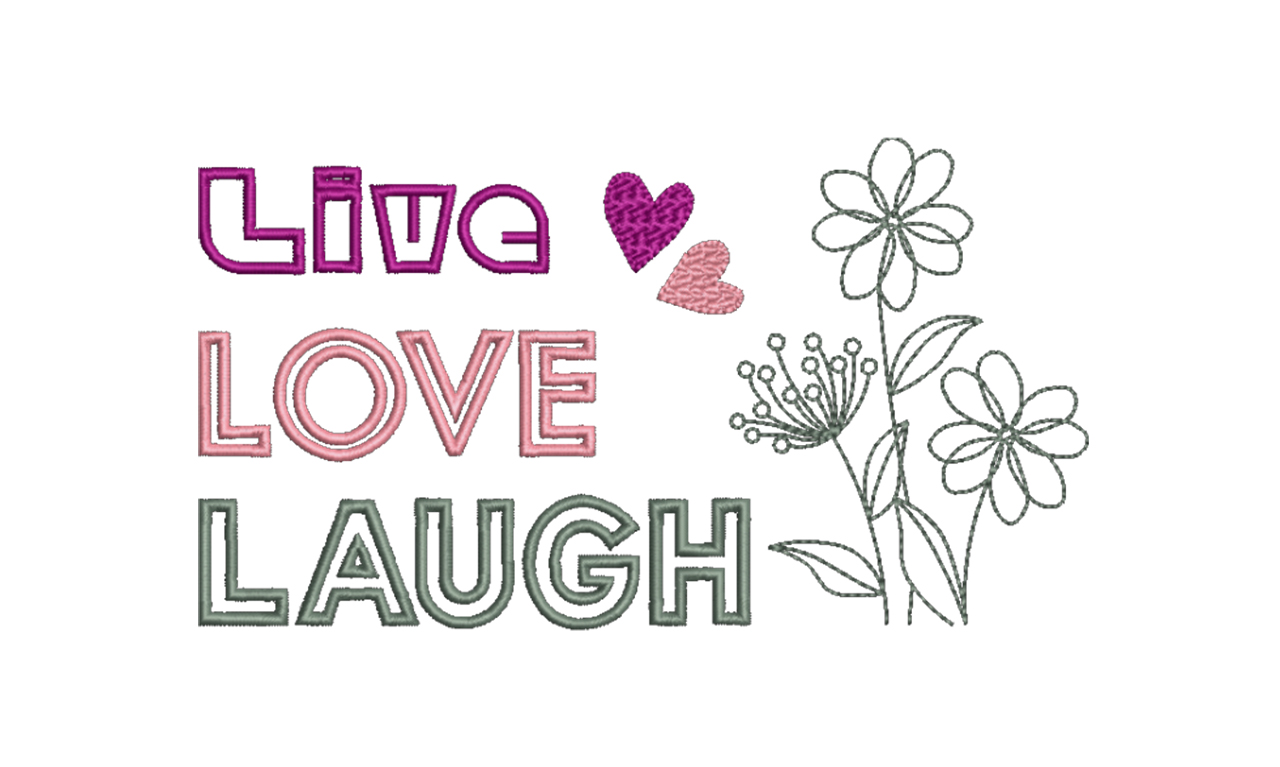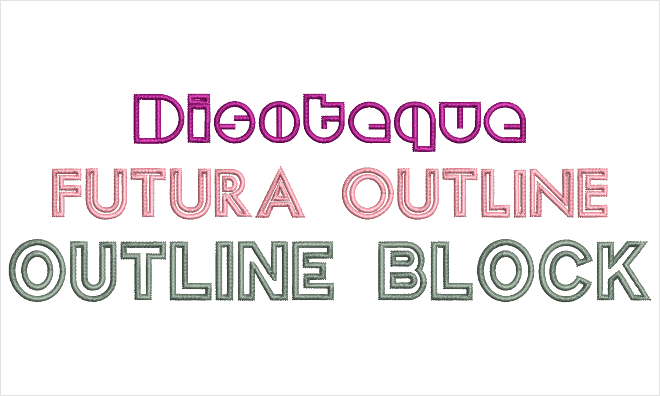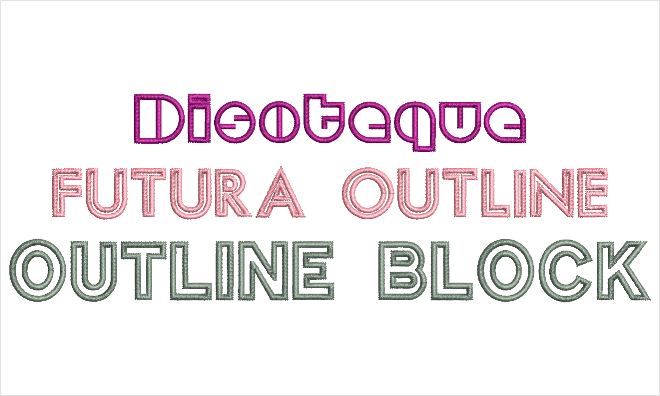
Font Pack #22 - Outline Collection
This collection is perfect for projects where you only want an outline of the letters and not filled.
Discoteque
Use when you want to 70-80s disco look
Futura Outline
Great for logos when you need a bold look without all the stitch count.
Outline Block
Use for medium height lettering
This collection is perfect for projects where you only want an outline of the letters and not filled.